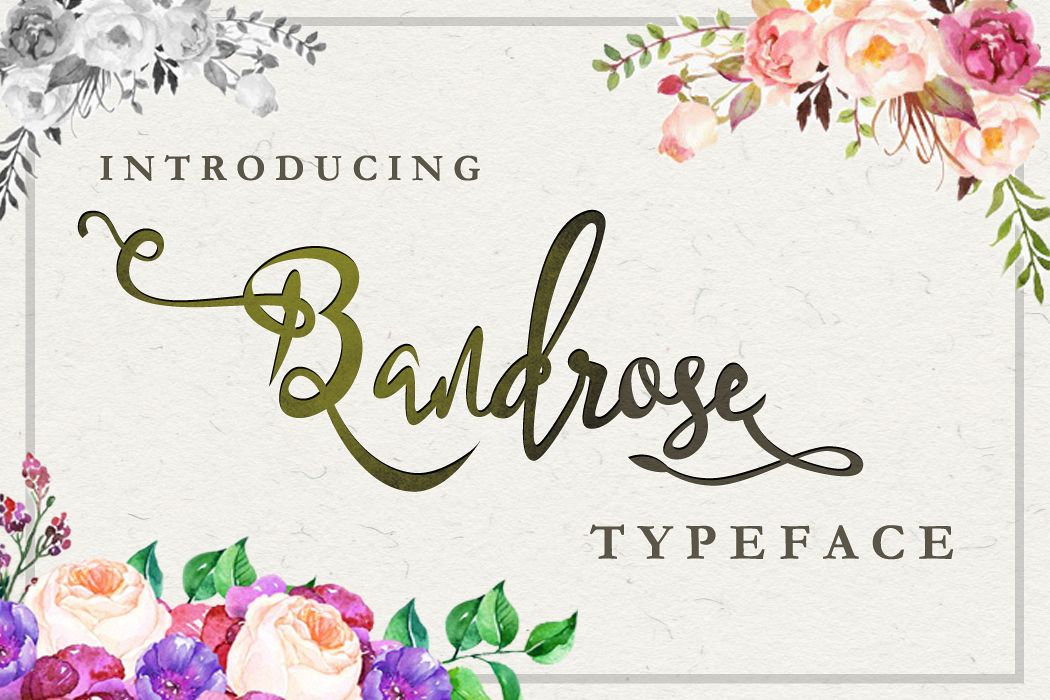
Bandrose typeface
Bandrose is a beautiful typeface that is provided for anyone who wants a beautiful and warm font design.It was inspired by the combination of handwriting and carving.
Its beauty can represent the design of your logo and product brand, its beauty can also be expressed in the work of your writing. Enriched with 9 beautiful alternates for each lowercase and uppercase and with 1199 ghlyps in total,  allow you to work without limits.